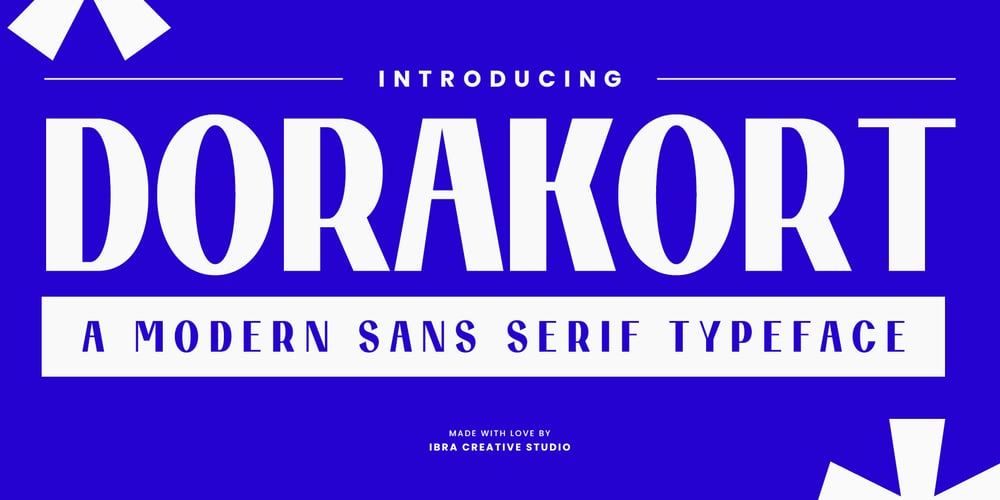
Dorakort
Dorakort font
Dorakort Font Family was designed by Roisatul Azizah and published by IbraCreative. Dorakort contains 1 styles and family package options. Dorakort – A Modern Sans Serif Typeface Dorakort, a modern sans serif typeface, embodies the essence of contemporary design with its clean lines and sleek appearance. Each letter in Dorakort exudes simplicity and sophistication, making it ideal for a wide range of applications, from digital interfaces to print materials. Its minimalist aesthetic ensures readability and versatility, while subtle geometric elements add a touch of visual interest. Whether used for branding, editorial design, or web typography, Dorakort offers a timeless and elegant solution that seamlessly blends with any design aesthetic. With its modern appeal and effortless charm, Dorakort stands as a testament to the enduring popularity of sans serif typefaces in the world of typography. Dorakort is perfect for branding projects, logo, wedding designs, social media posts, advertisements, product packaging, product designs, label, photography, watermark, invitation, stationery, game, fashion and any projects.Fonts include multilingual support for; Afrikaans, Albanian, Czech, Danish, Dutch, English, Estonian, Finnish, French, German, Hungarian, Italian, Latvian, Lithuanian, Norwegian, Polish, Portuguese, Slovak, Slovenian, Spanish, Swedish.